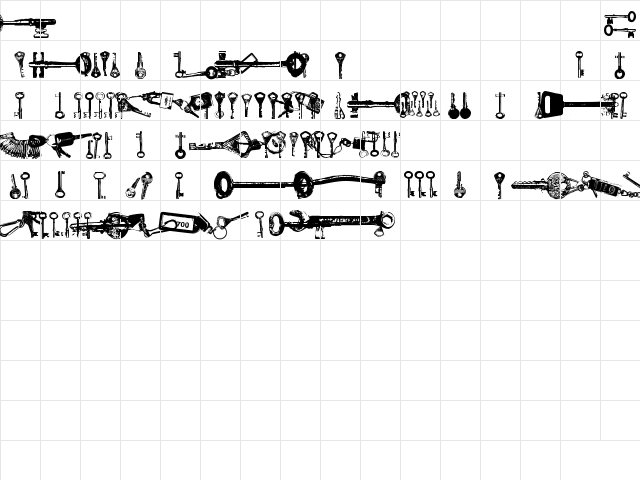
Avain Regular
Design Context for Avain Typeface
Avain is a composed and adaptable typeface that performs quietly and consistently across a wide range of design contexts.